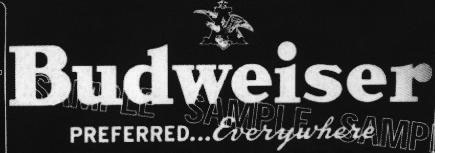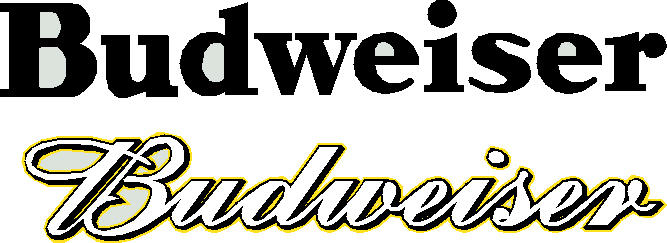
Budweiser Font?
what is it?
They do, but this is from an older logo. Looks a bit like Clarendon,but not, or it could be a Bookman Bold, which I don't have. :help:
No match in my database. I would imagine that it is an exclusively licensed font. Many foundries do a big business with large corporations supplying them with fonts no one else has.
Thanks, Bobby, I was affraid of that. This signs has to be hand lettered anyway, but I was hoping to make a plotter pattern. I could probably modify Clarendon to match it, or make a pattern the analog way. I don't even know if my projector still works.
Budweiser has exclussive fonts yes. Have friends who worked/and currently still work for Bud. They have their own in house vinyl department.
Not only does Anheuser-Busch have their own in house advertising dept., many of their regional distribution centers have vinyl cutters and large format printers as well.
Sign Solutions: Thanks! send it over, I'll clean it up. Don't need the script.